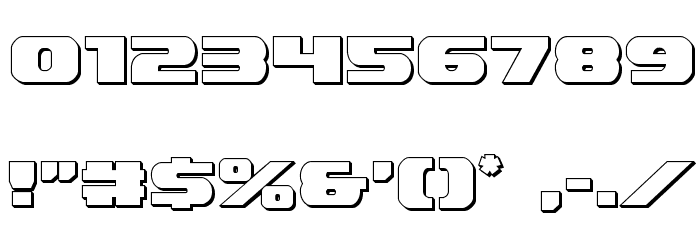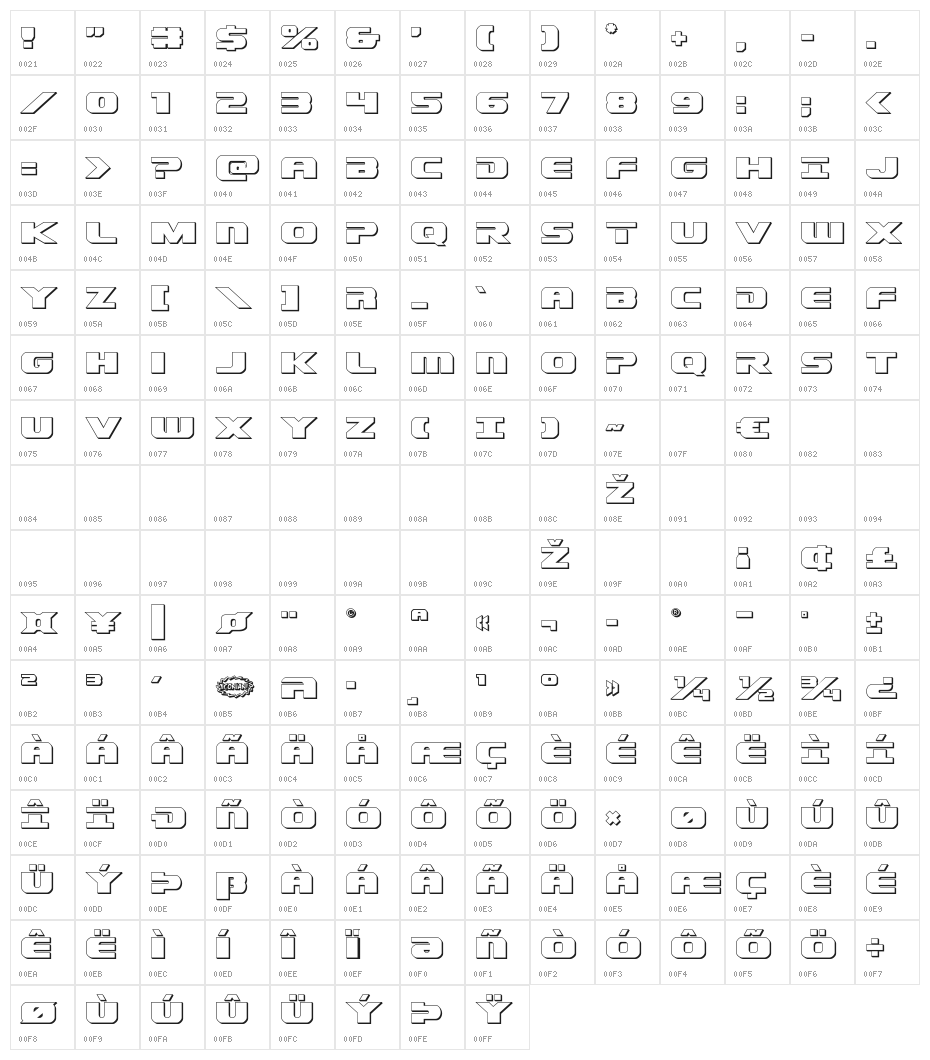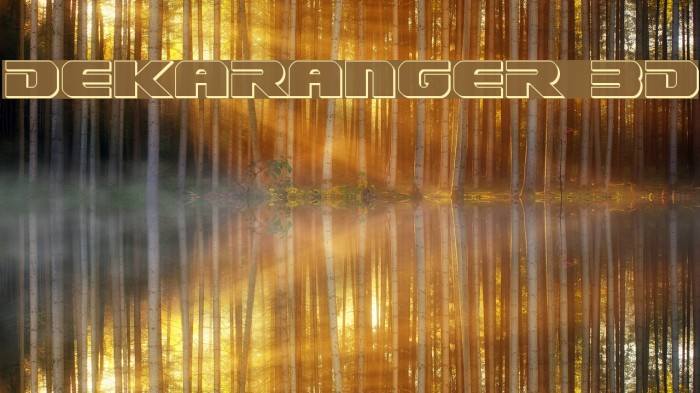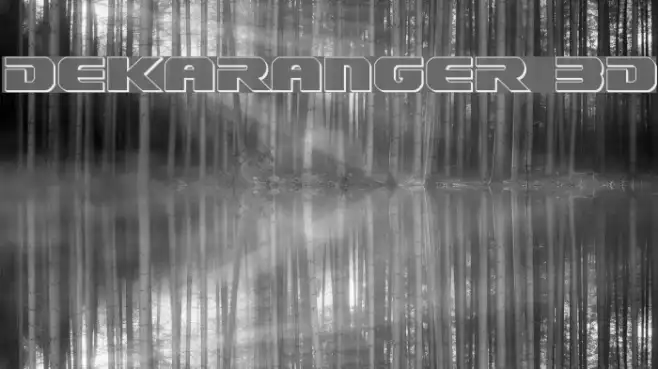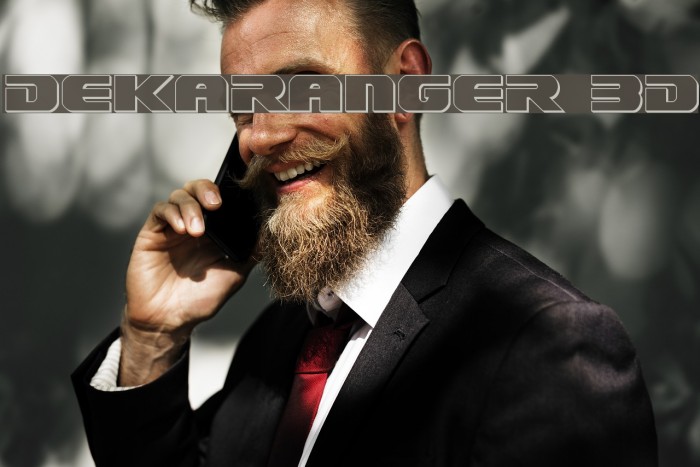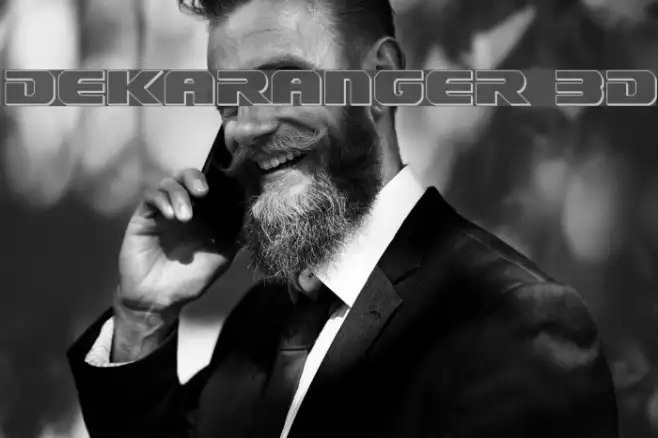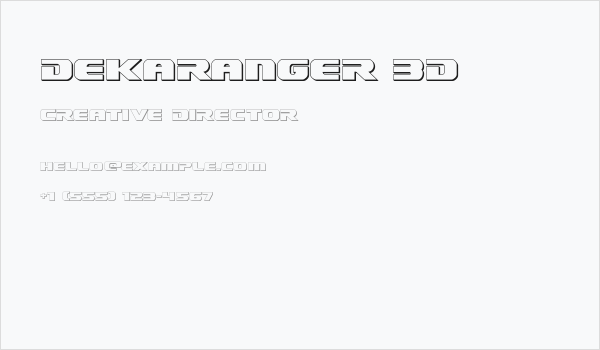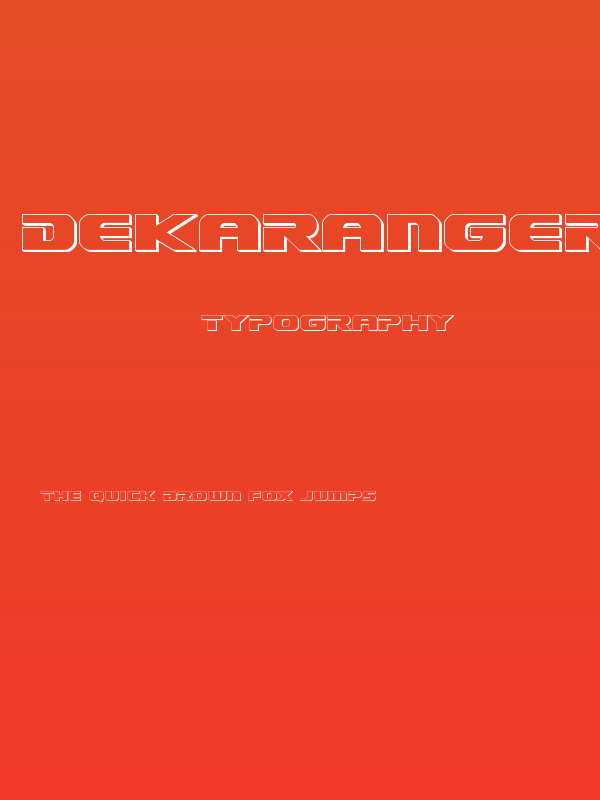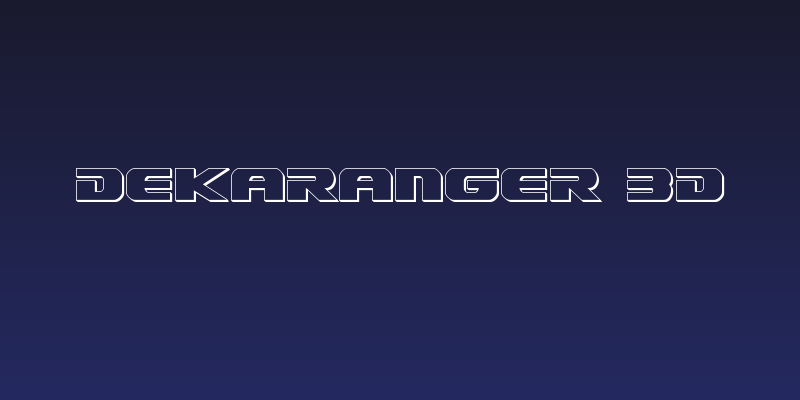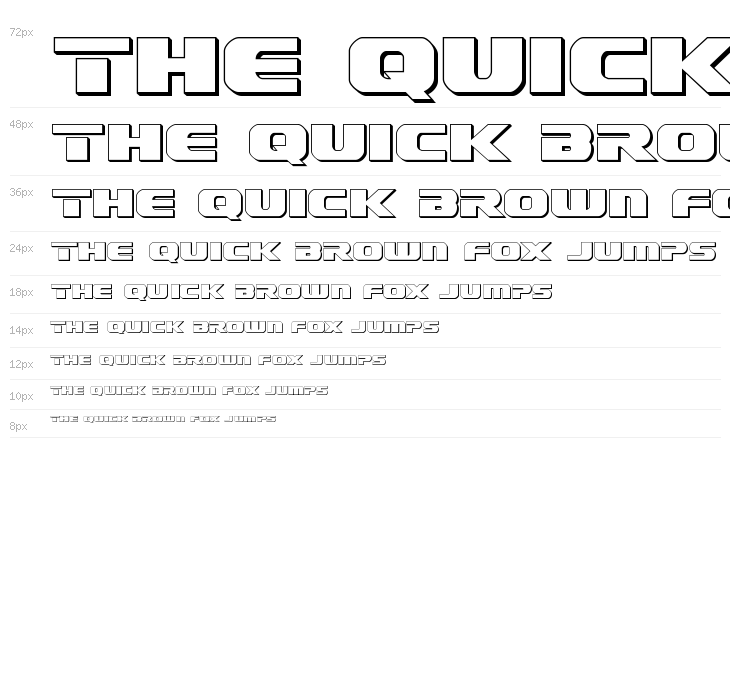
Dekaranger 3D Font
Dekaranger 3D Description
This font features a bold, geometric design with a three-dimensional effect, giving it a futuristic and dynamic appearance. The characters are outlined, creating a hollow look that enhances the 3D illusion. Each letter is constructed with straight lines and sharp angles, contributing to a modern and tech-inspired aesthetic. The uniformity in height and width across characters ensures a cohesive and structured look. The font includes uppercase letters, numbers, and a variety of special characters, making it versatile for different design needs.
| Proposed Projects | Ideal for sci-fi themed projects, video game titles, tech branding, and futuristic posters. |